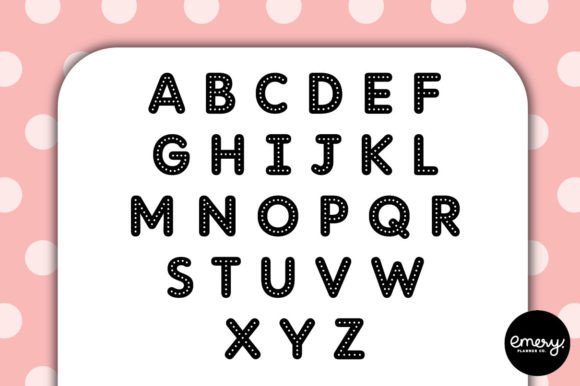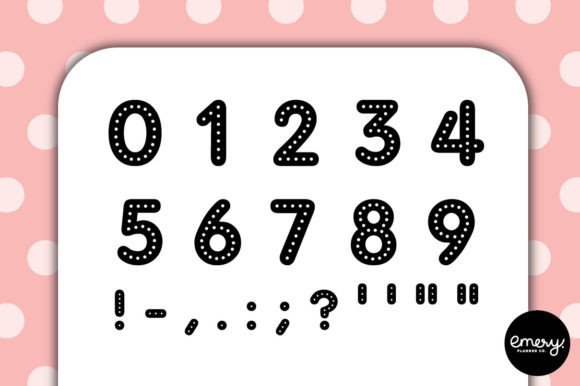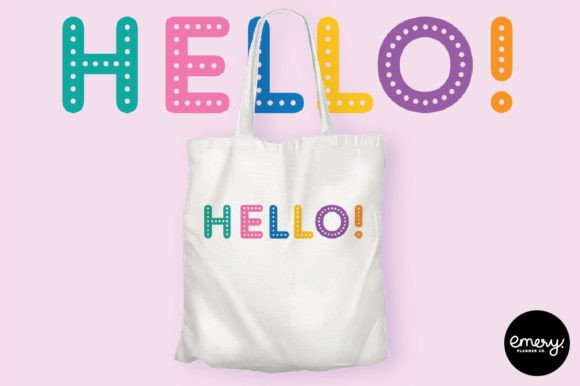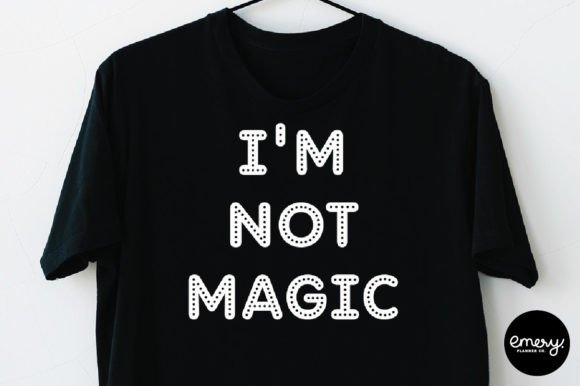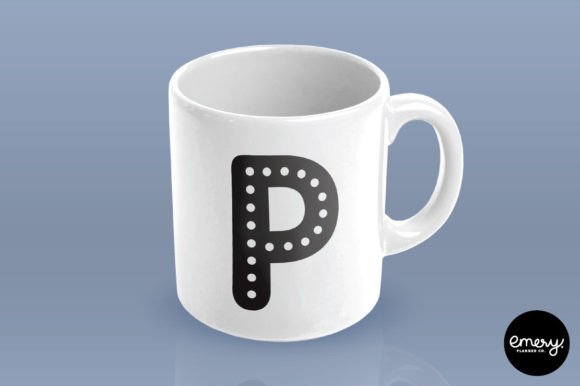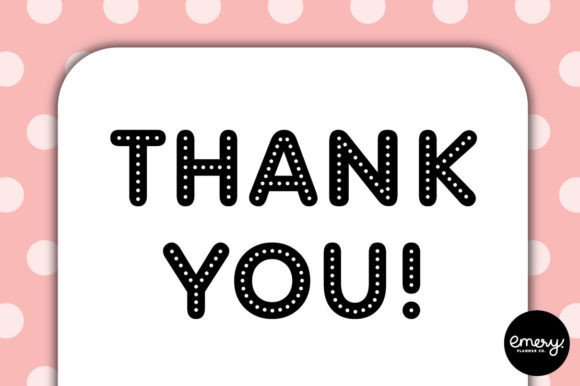
Introduction to Dot Dream Font
Have you ever stared at a blank page, waiting for that perfect font to bring your creative project to life? For many designers, this is a familiar feeling, one that’s a mix of excitement and frustration. But what if I told you there’s a font that can make that spark of creativity shine brighter? Enter the Dot Dream Font, a versatile and high-quality design resource that’s perfect for a wide range of projects.
As a designer, you know how valuable it is to have a reliable font that can elevate your work. The Dot Dream Font delivers, with its clean lines, transparent background, and modern aesthetic making it a top choice for everything from educational resources to product packaging.
Key Features of Dot Dream Font
- High-quality design: Dot Dream Font is a beautifully crafted font suitable for a wide range of creative projects.
- Transparent background: The font features a transparent background, allowing for seamless integration with any design or image.
- Large character set: The font includes a comprehensive character set, including uppercase and lowercase letters, numbers, and punctuation marks.
- Perfect for creative projects: Dot Dream Font is a versatile design element that can be used in a variety of creative projects, from branding and logos to graphics and typography.
Honest Review: Dot Dream Font
One of the standout features of the Dot Dream Font is its transparent background, which allows for seamless integration into any design. I’ve used it for a variety of projects, from digital art to branding materials, and it’s been a consistent winner.
- ✨ High-quality design with crisp, clean lines
- ✨ Transparent background for easy integration
- ⚠️ Limited character set, may not be suitable for extensive text-based projects
- ⚠️ Not as versatile as some other fonts, may not be suitable for complex typography
Dot Dream Font: A Free Design Resource for Creative Projects
To get the most out of the Dot Dream Font, use it on a transparent background to create a modern and sleek design. You can also experiment with different font sizes and colors to add visual interest to your design.
The Dot Dream Font is ideal for creative projects, such as:
- Branding
The Dot Dream Font is a high-quality, free design resource that can be used in various design software. With its transparent background and creative possibilities, it’s perfect for any design project.